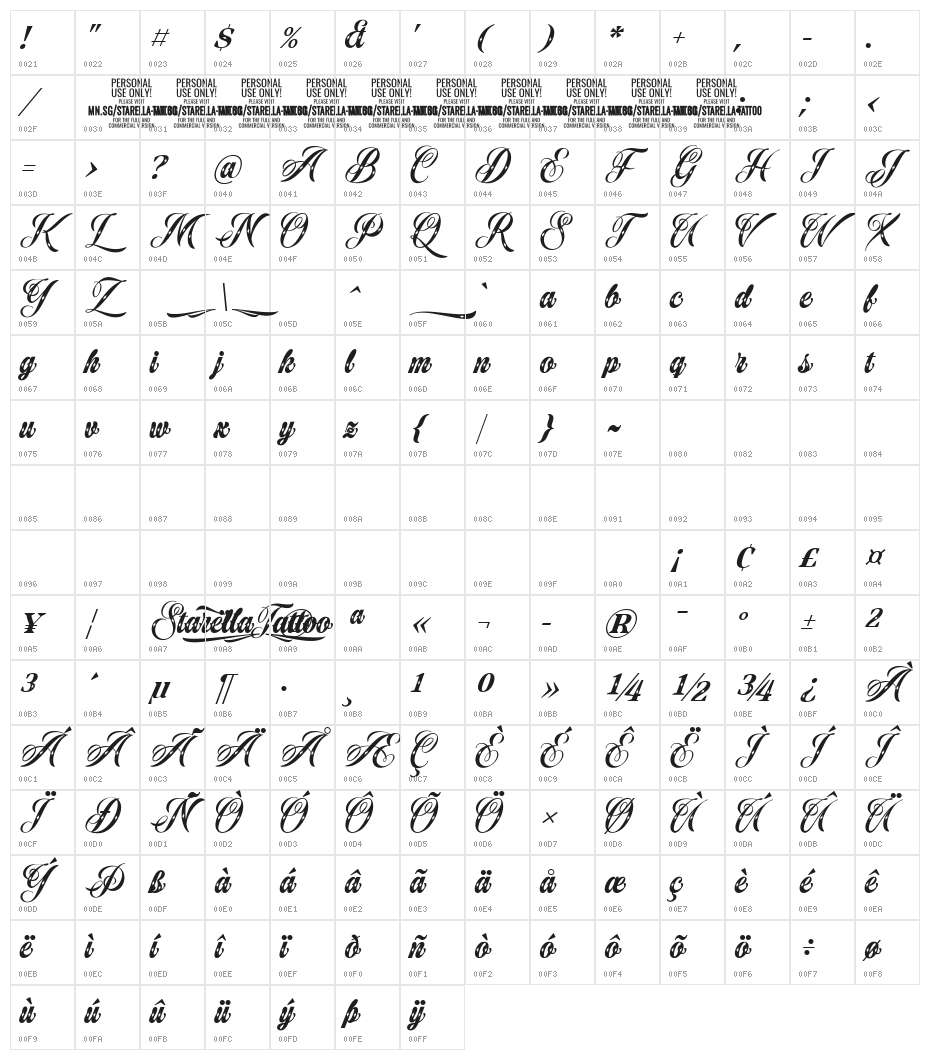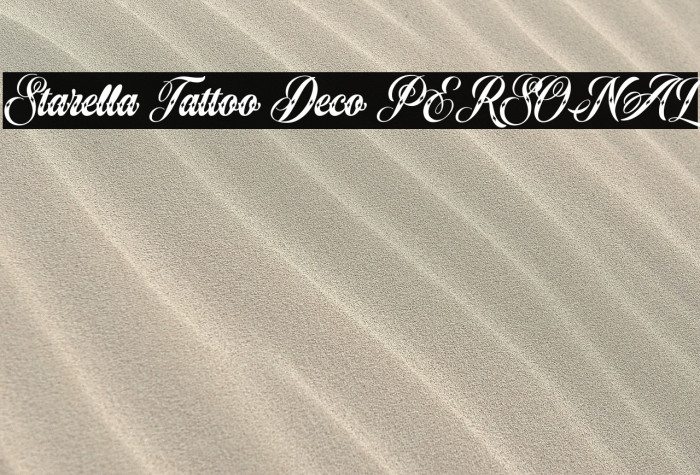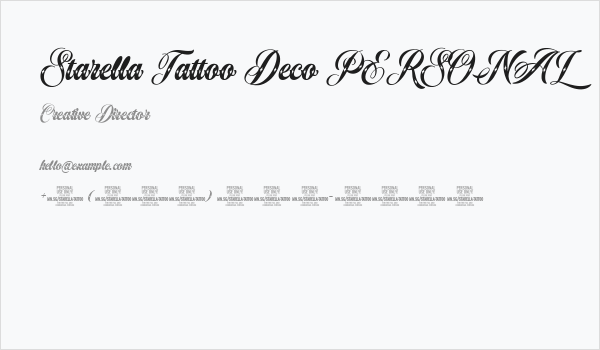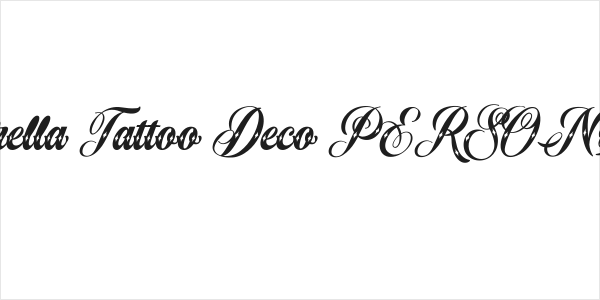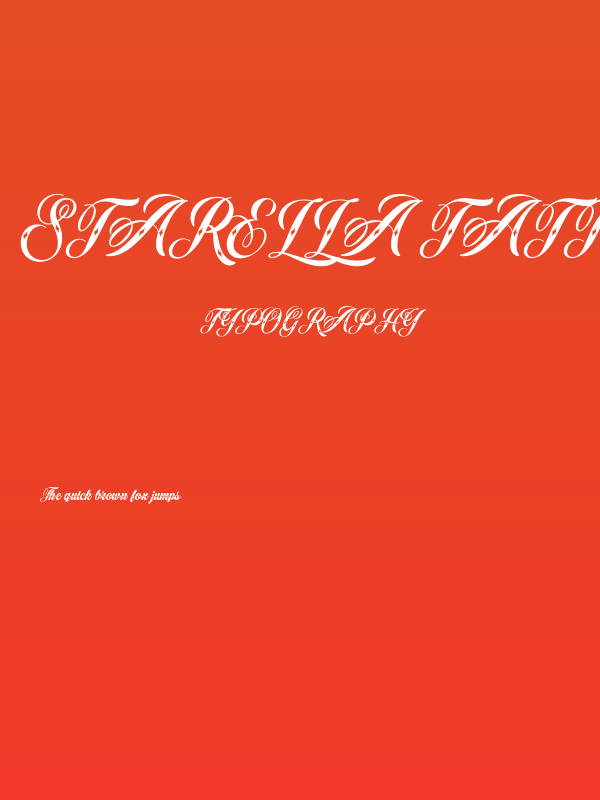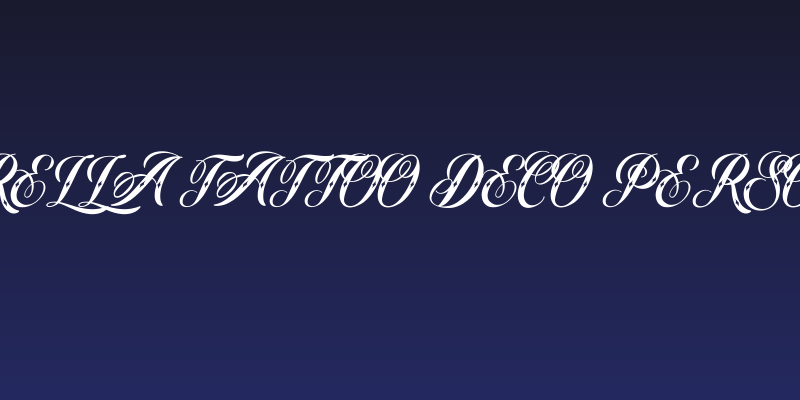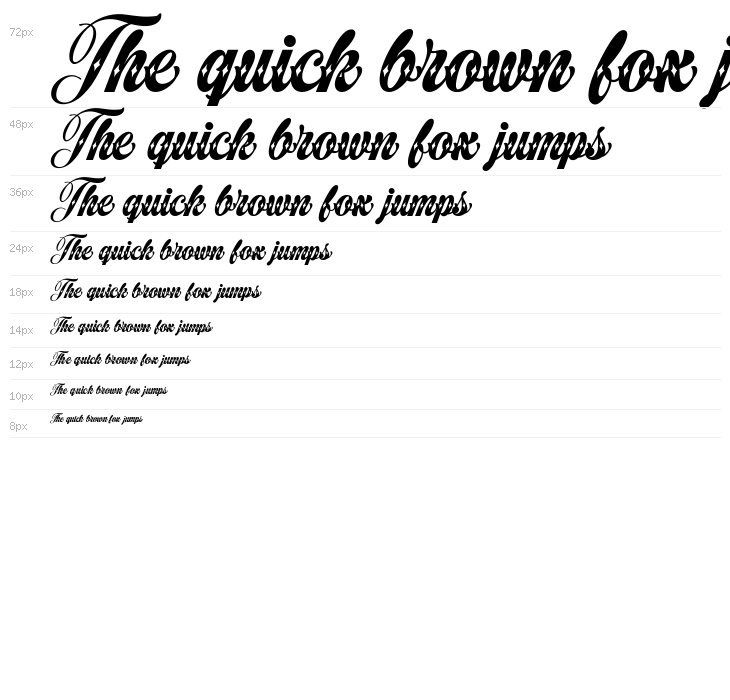
Starella Tattoo Deco PERSONAL Font
Starella Tattoo Deco PERSONAL Description
This font features an elegant and decorative script style, characterized by its flowing, interconnected letterforms. The uppercase letters are particularly ornate, with intricate swirls and loops that give a sense of movement and sophistication. The lowercase letters maintain a consistent style, with bold strokes and a slight slant that enhances the cursive appearance. The numbers and special characters are designed to match the overall aesthetic, ensuring a cohesive look across all text. This font exudes a sense of luxury and artistic flair, making it ideal for projects that require a touch of elegance and creativity.
| Proposed Projects | Ideal for tattoo designs, wedding invitations, luxury branding, and artistic projects. |